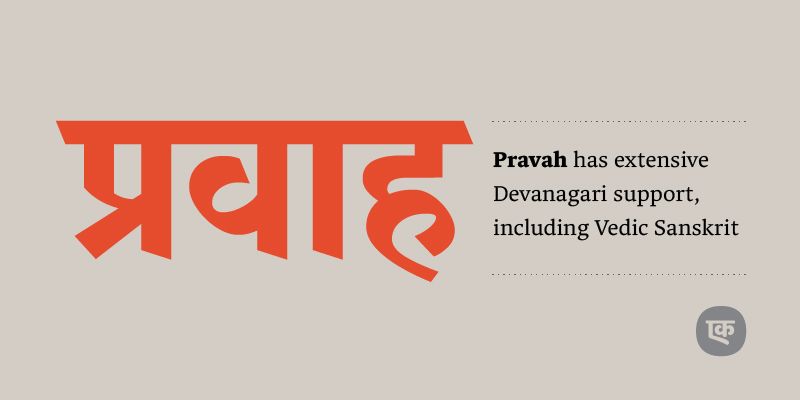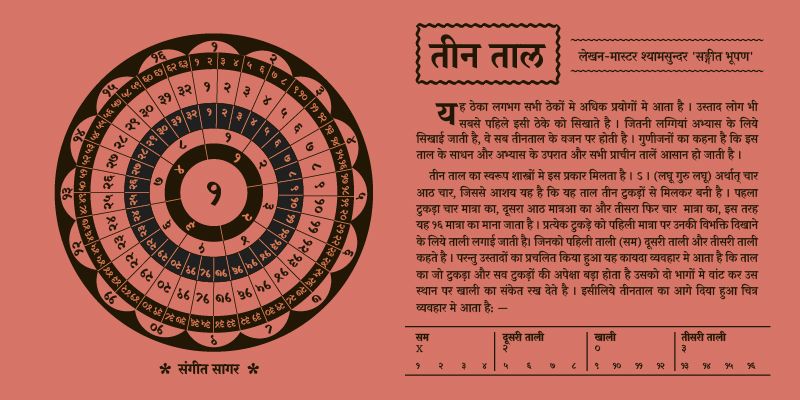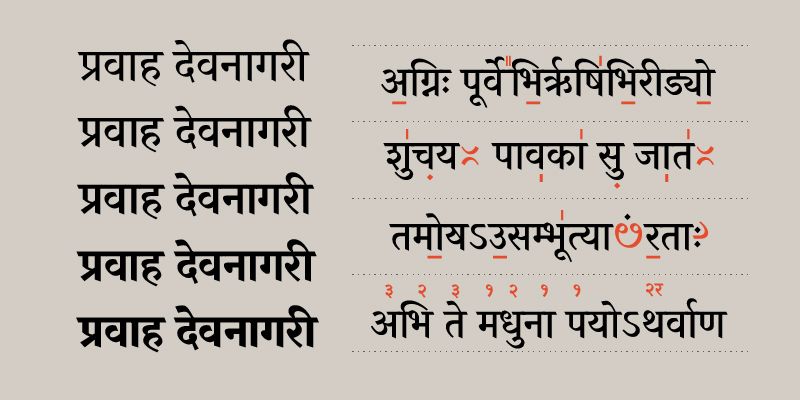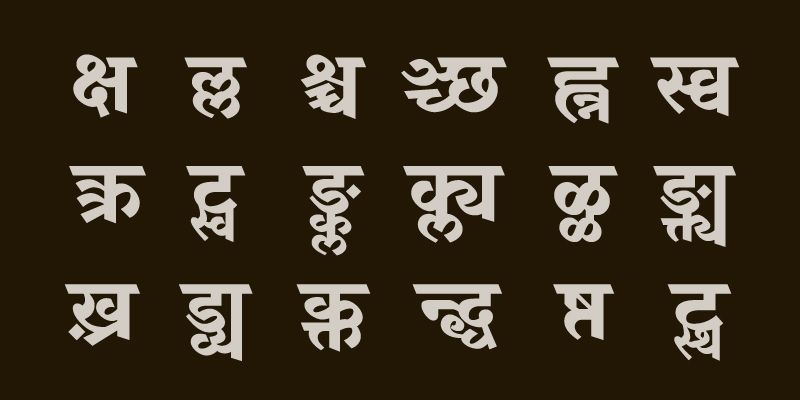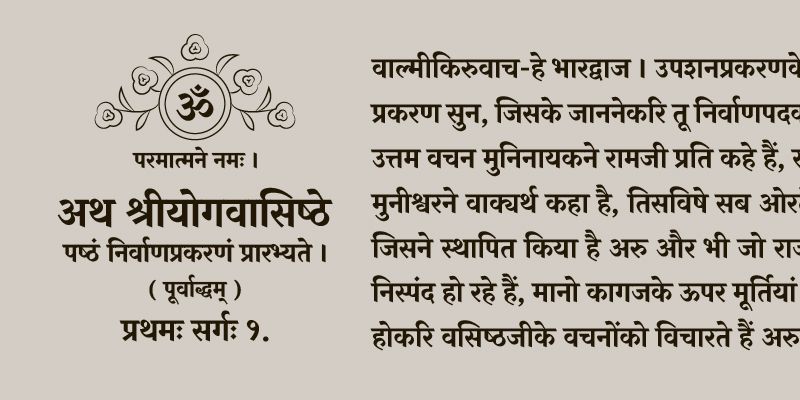
Pravah is Ek Type’s tribute to Prof. Mukund Gokhale’s original design for an exhaustive Devanagari text typeface, that fulfils all requirements of complex Sanskrit typesetting. Adhering to the ITR tradition of text typefaces, Pravah embraces a distinct stroke contrast that echoes the Balbodh calligraphy based text typefaces, popular during the 70s and 80s. Its thoughtful design effortlessly combines traditional elegance with contemporary functionality, making it a versatile choice for both scholarly and literary purposes.